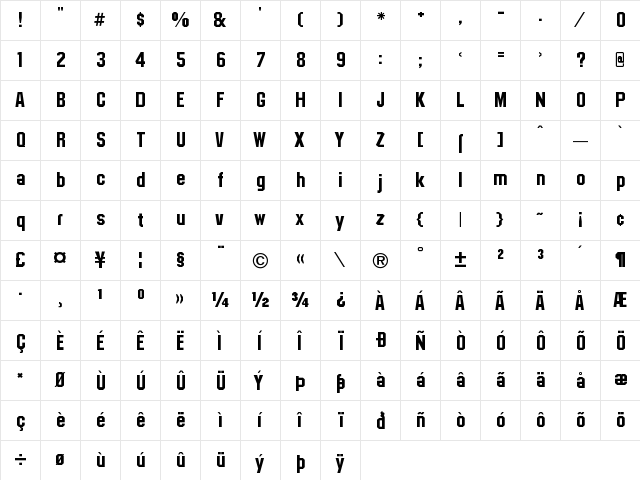
College TM Regular
Design Context for College TM Typeface
College TM brings high-energy athletic personality to the page — its confident, muscular forms are built for impact.
A natural choice for gym brands, fantasy sports, jersey lettering, and action-driven headlines.
Font Pairing: Use alongside a condensed or geometric sans for supporting copy — keep the pairing bold, functional, and free of ornament.
Pro Tip: Use College TM in all-caps headlines where its athletic energy can fully express itself. Pair with a solid, simple sans for supporting text.